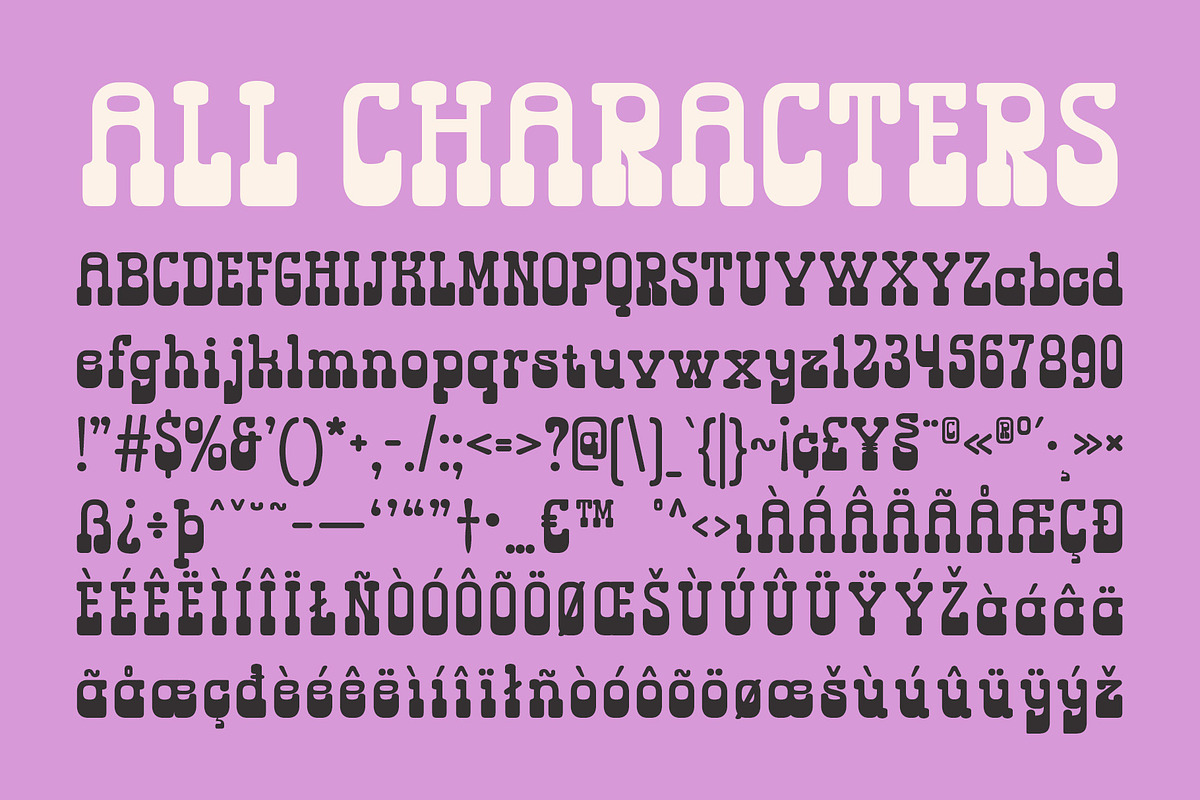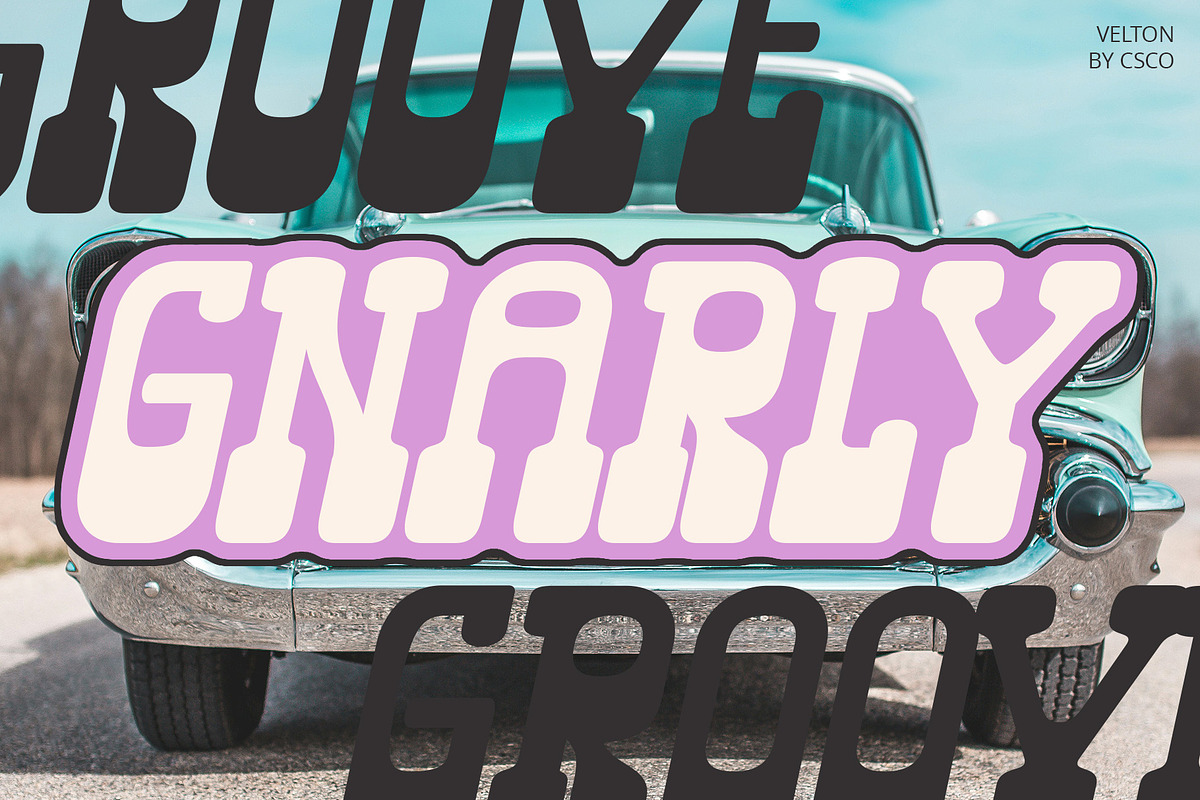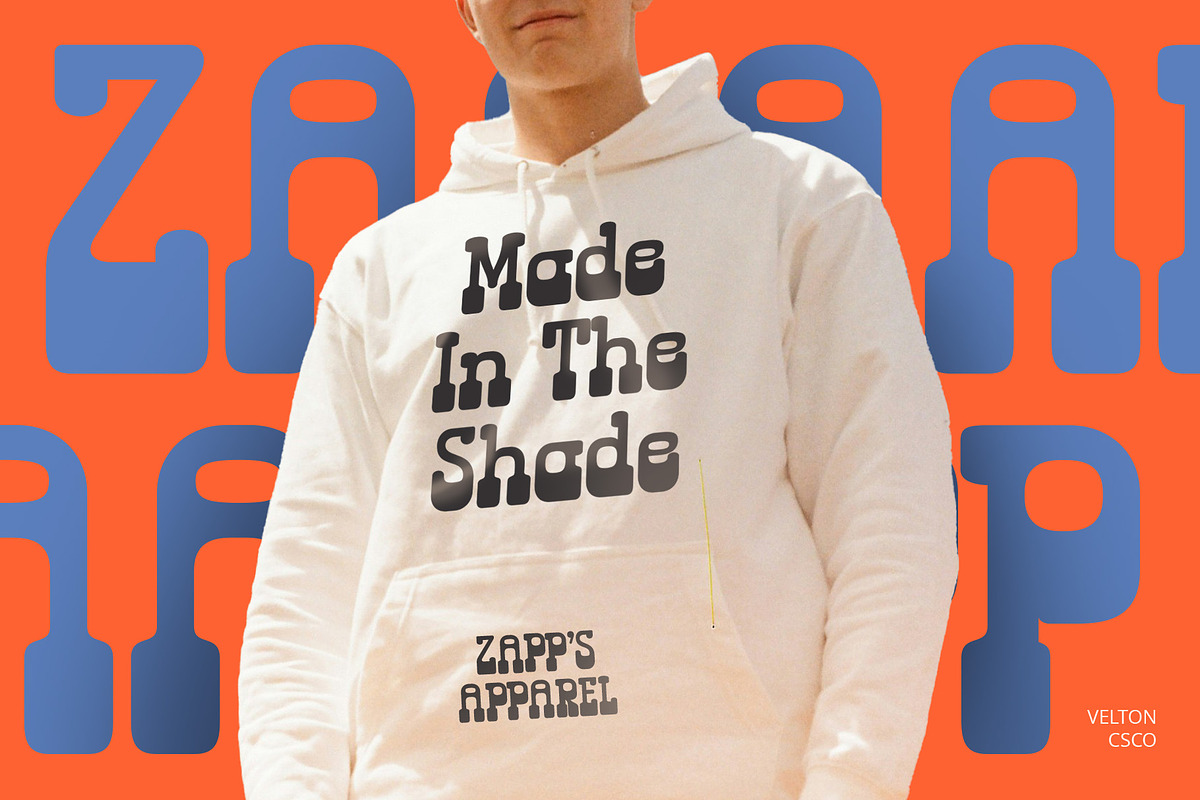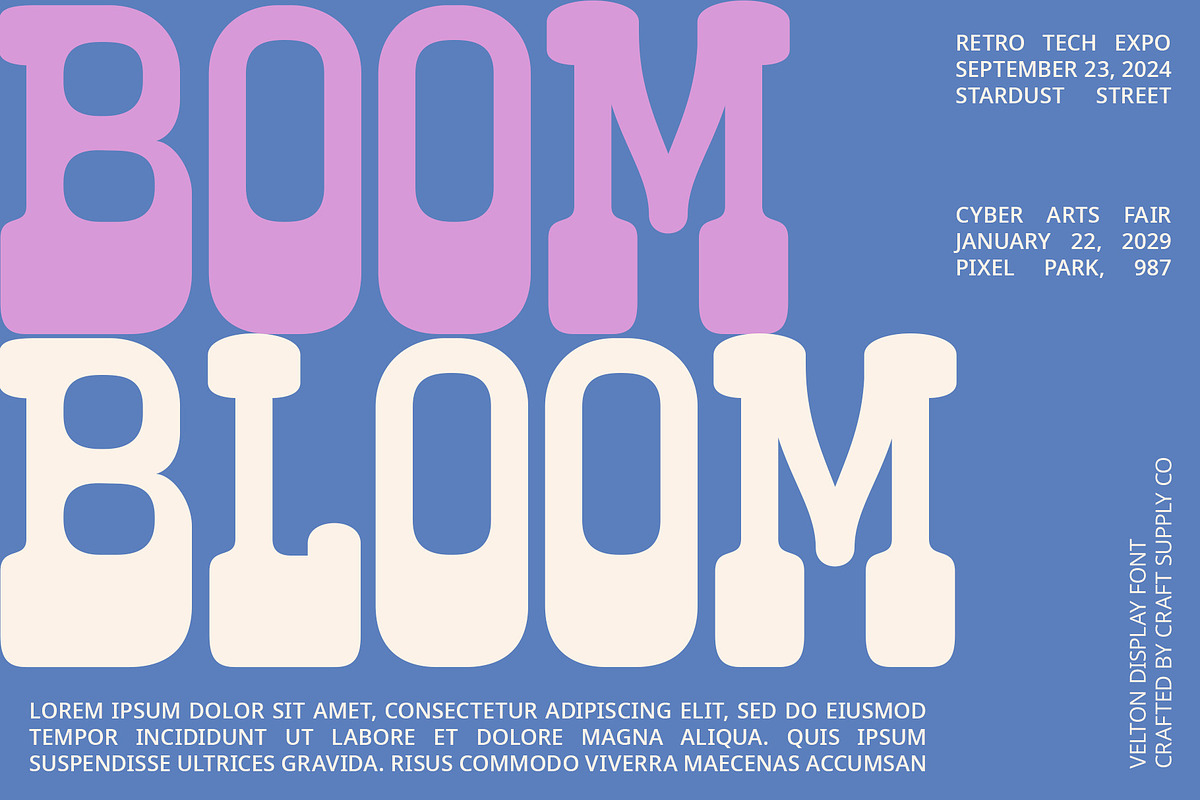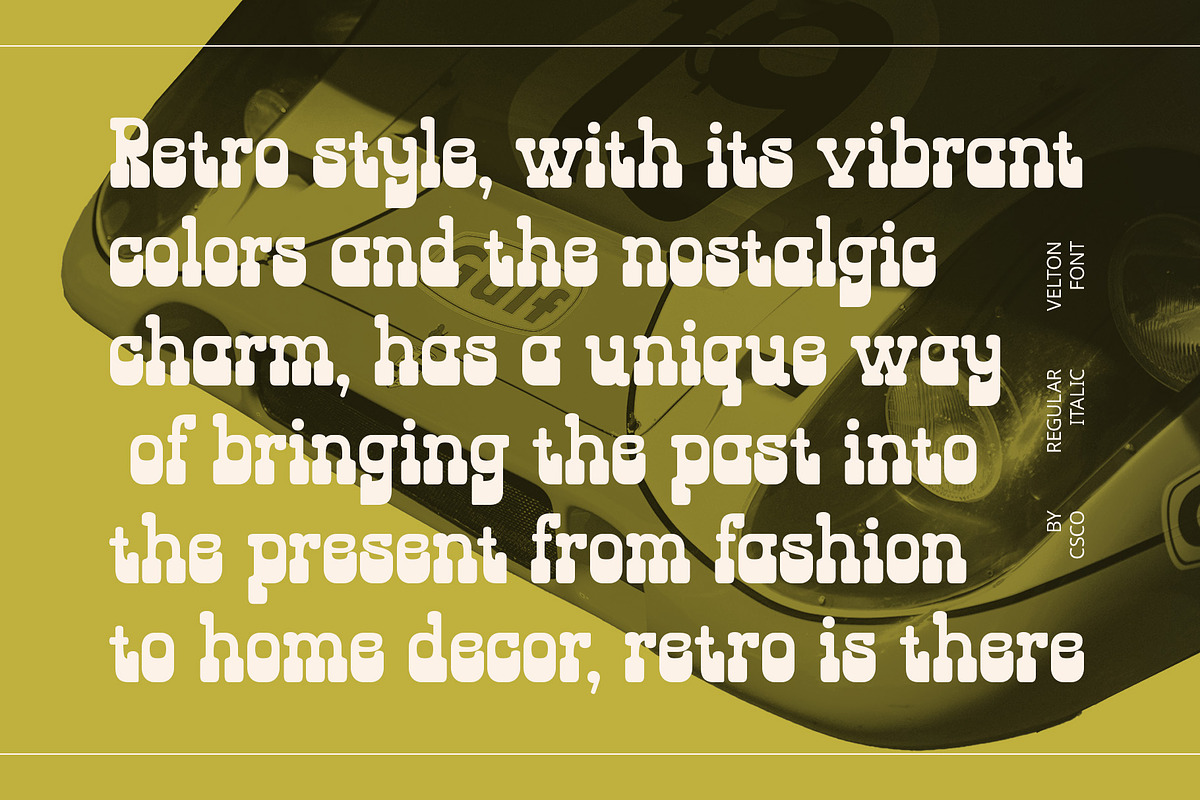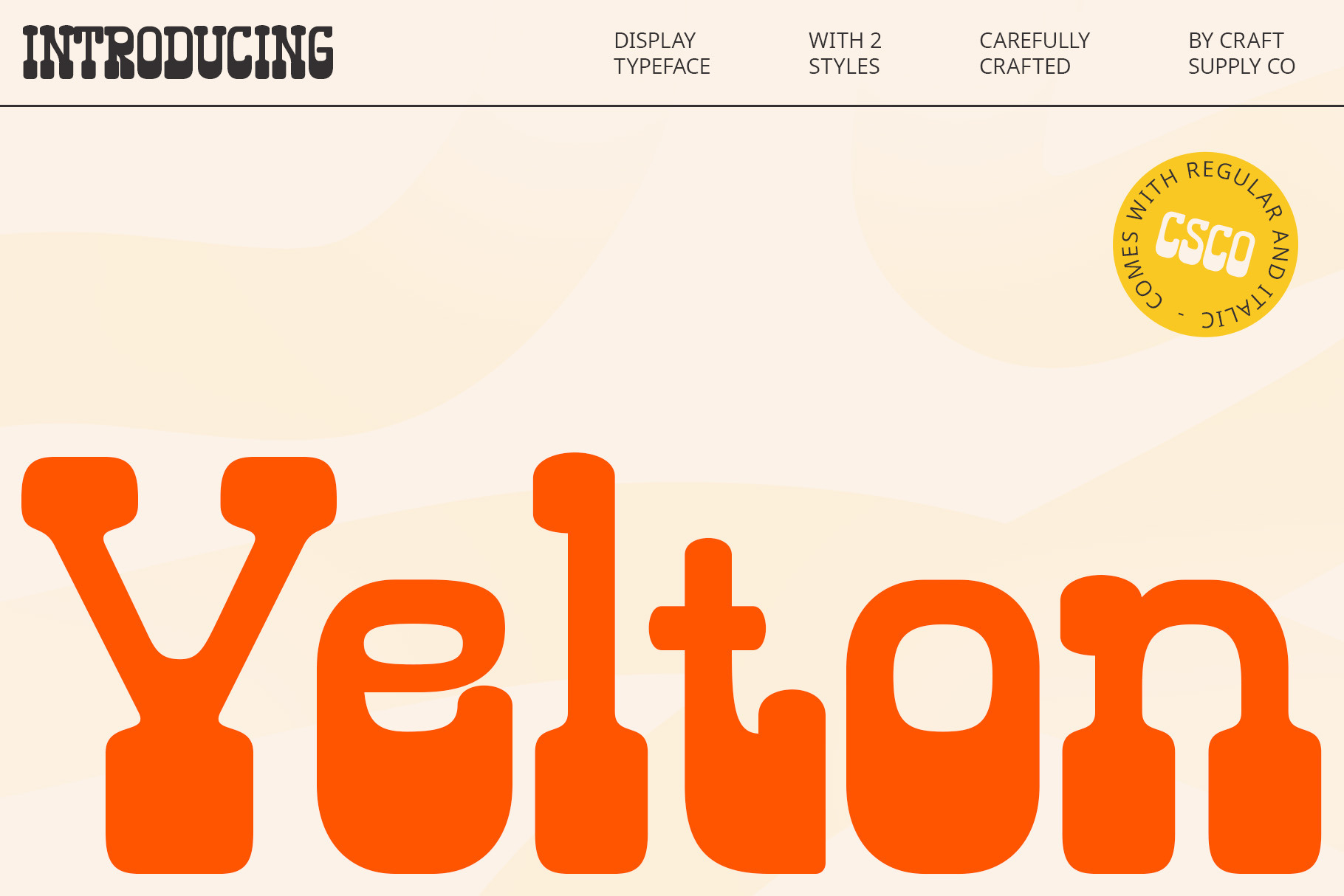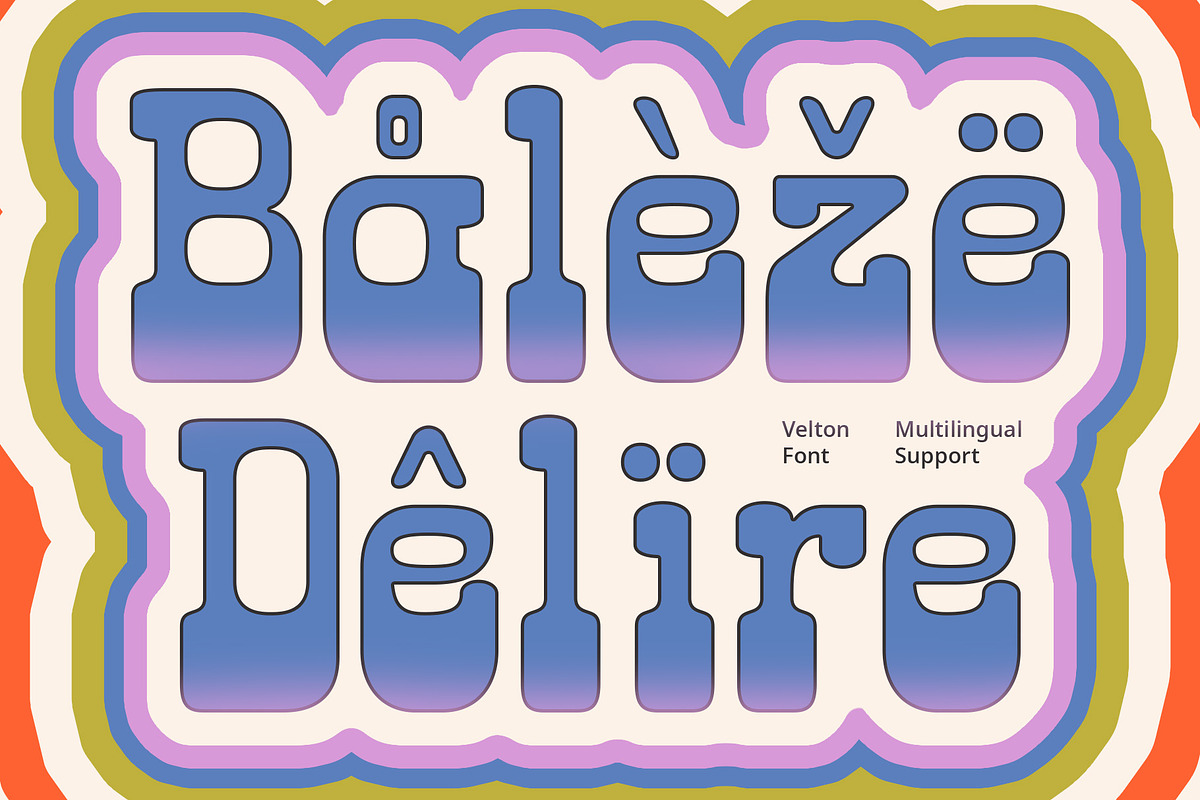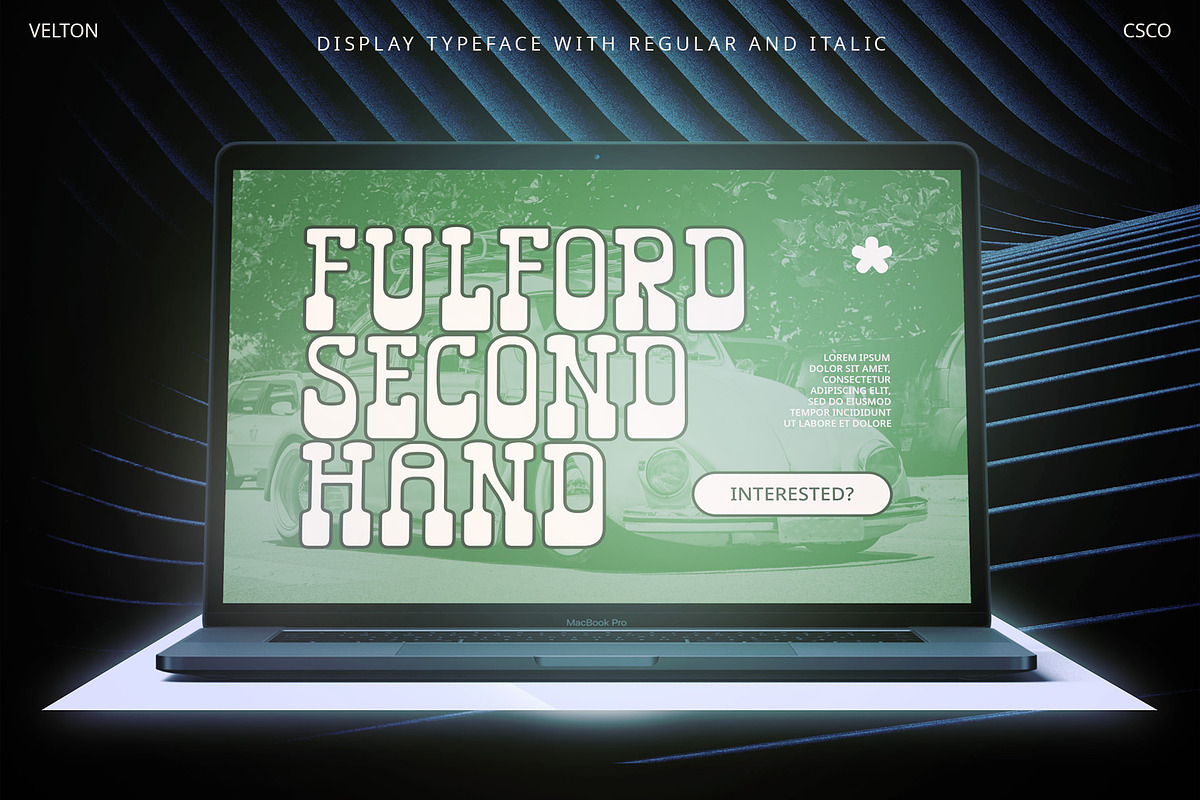
Velton – Reverse Contrast Font
Velton – Reverse Contrast Font: Funky and Retro Serif
Unique and Striking Velton is a serif font with reverse contrast, showcasing funky and retro characteristics. Its design features unusual thickness on the horizontal parts of the letters, while the vertical parts are thinner, creating an eccentric and distinctive look that stands out in any design.
Ideal for Retro Designs Perfect for headlines, banners, and other display purposes, Velton ensures your message is both seen and remembered. Its reverse contrast style makes it a perfect choice for designs seeking a funky and striking retro impression.
Versatile and Eccentric Despite its retro appearance, Velton remains versatile and eccentric. Its serif font format makes it suitable for a wide range of projects, from branding to digital designs, where a font that combines retro charm with modern design is essential for making a statement.
Perfect for Adding a Retro Touch Velton is ideal for projects requiring a font with a retro touch. Whether you’re designing a poster, logo, or website, this font will undoubtedly add a distinct and memorable element to your designs.
- Velton Regular
- Velton Italic